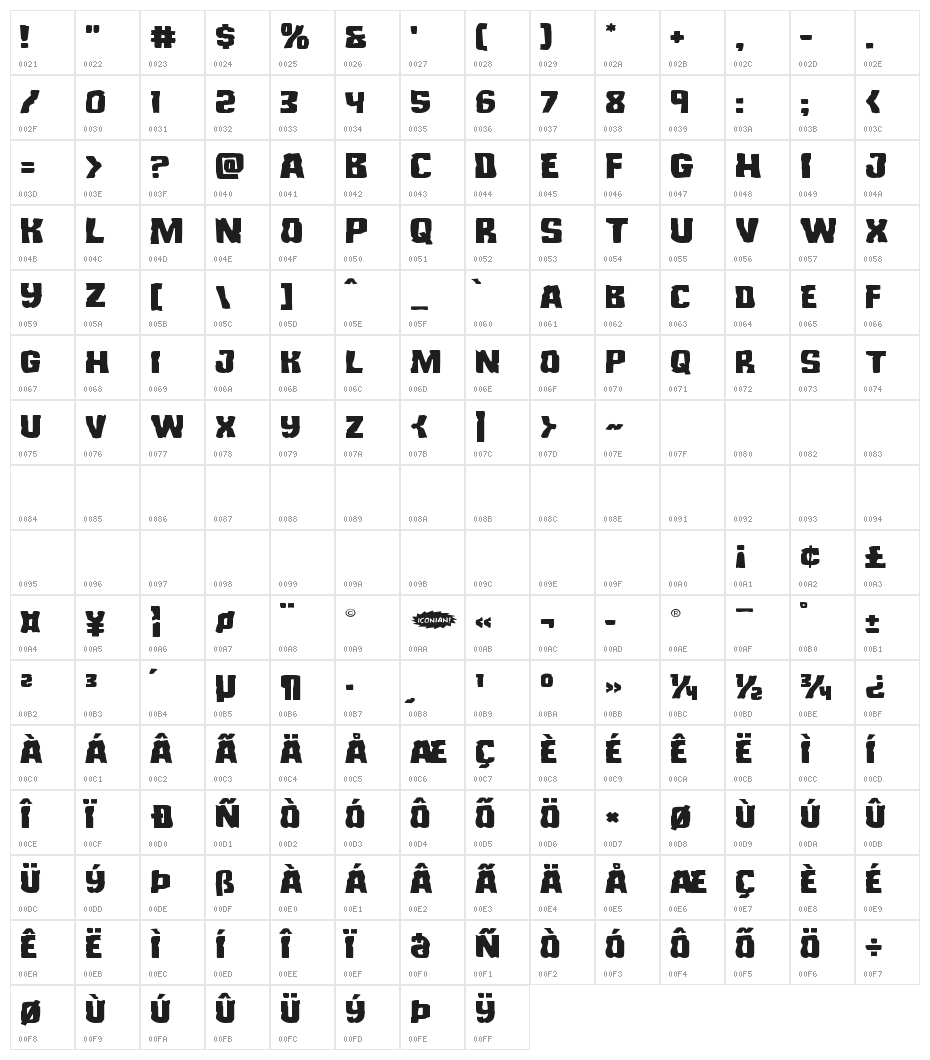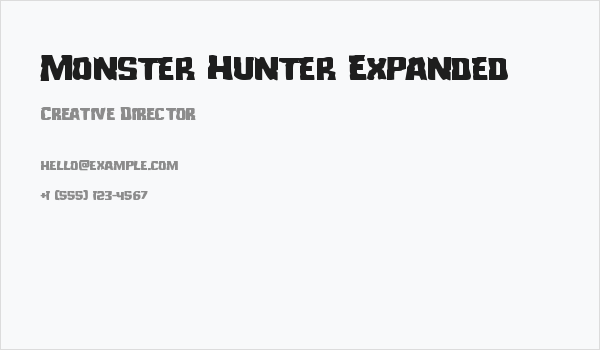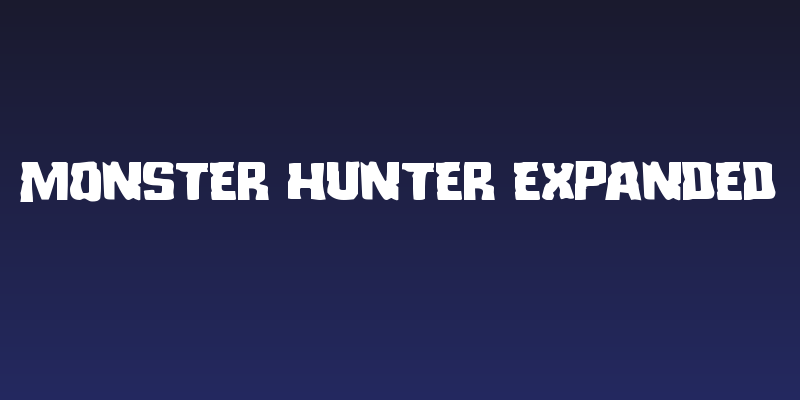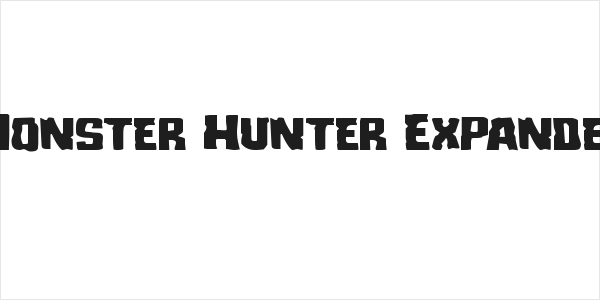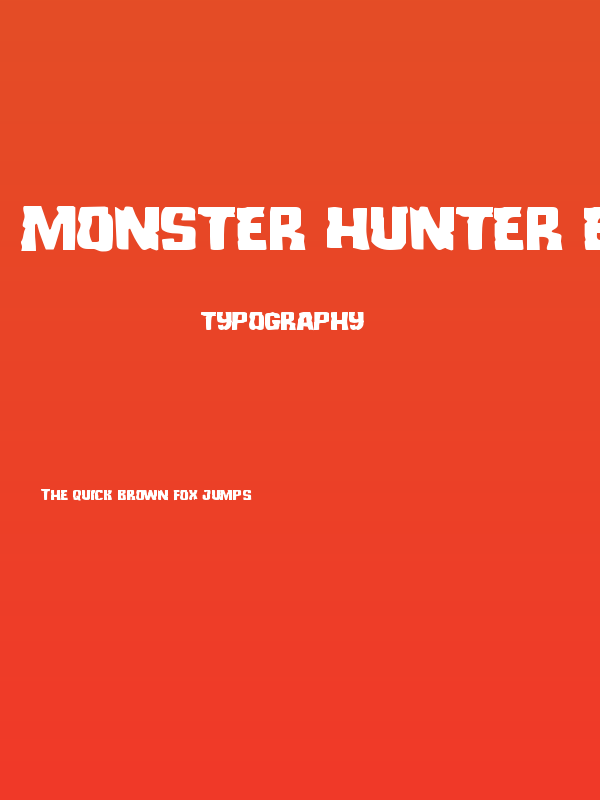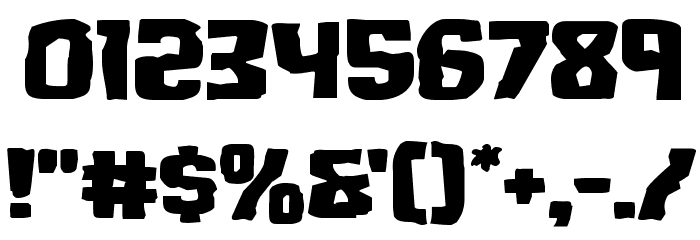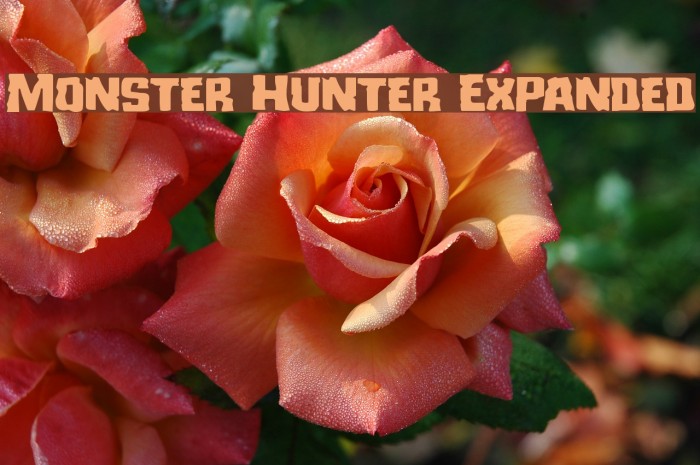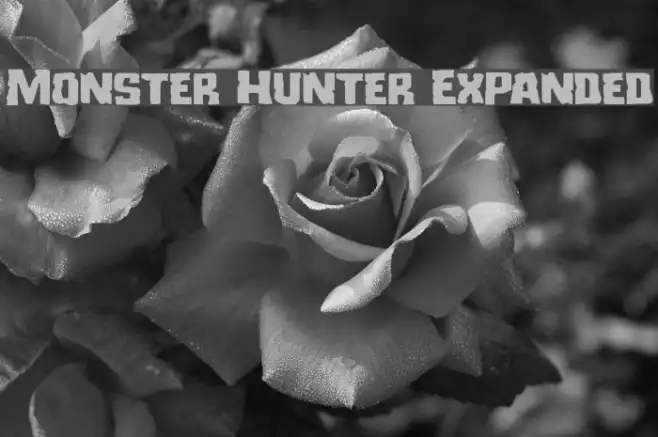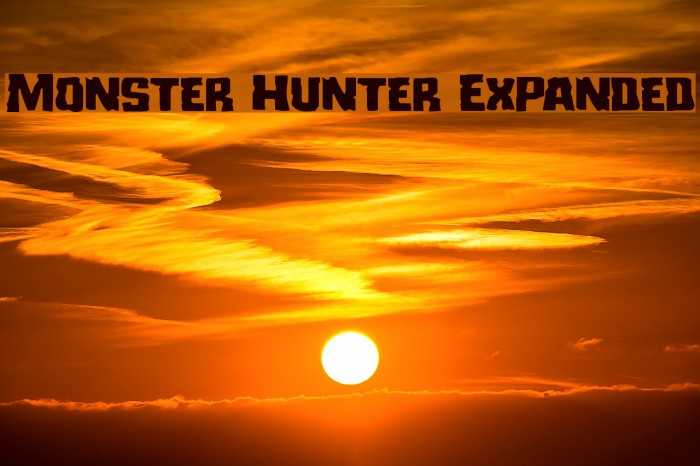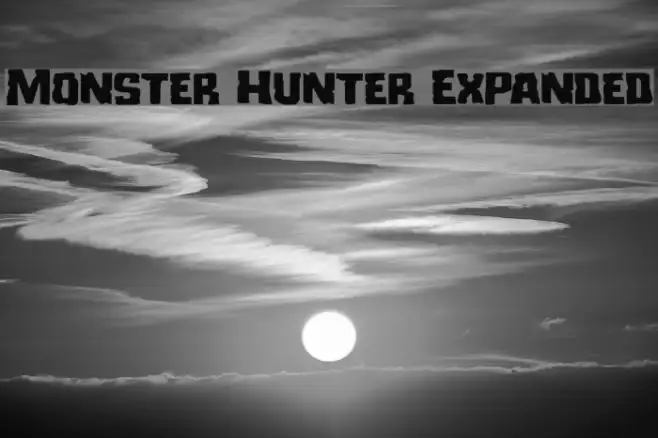
Monster Hunter Expanded Font
Monster Hunter Expanded Description
This font features a bold and rugged design, characterized by its thick, uneven strokes and a slightly distressed appearance. The letters have a blocky, angular style, giving them a strong and imposing presence. The uppercase and lowercase letters maintain a consistent weight, contributing to a cohesive look. The numerals and special characters follow the same design principles, ensuring uniformity across all glyphs. This font's unique style is reminiscent of adventure and fantasy themes, making it ideal for projects that require a bold and eye-catching typeface.
| Proposed Projects | Perfect for video game titles, movie posters, adventure-themed branding, and merchandise. |